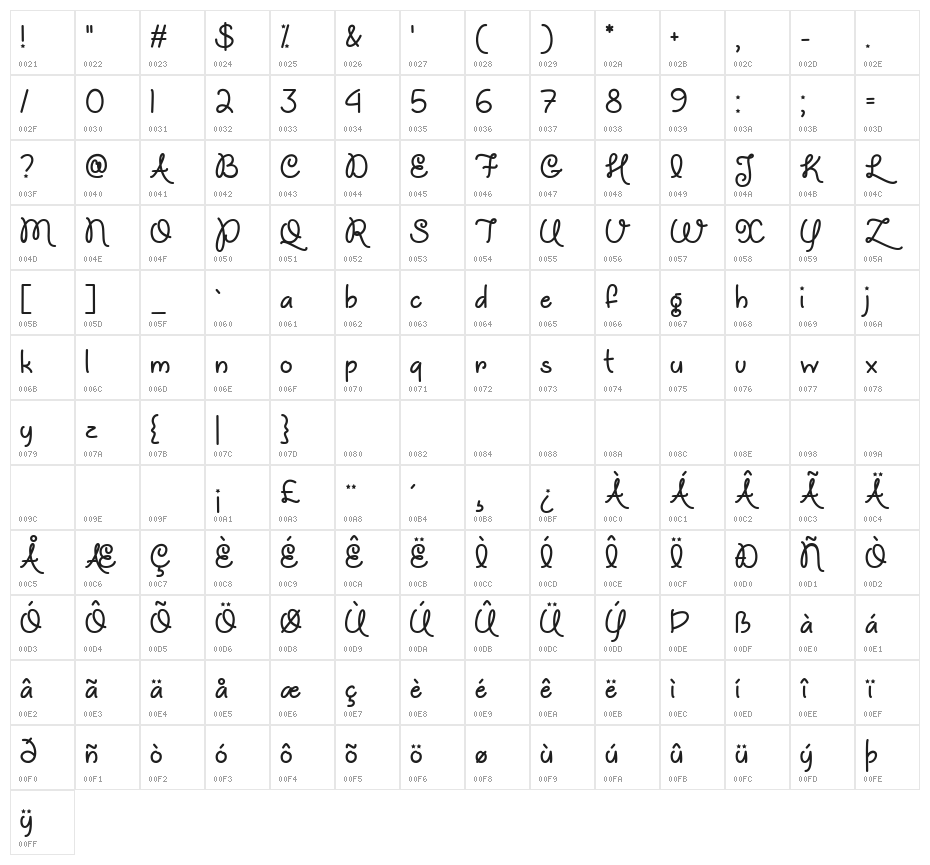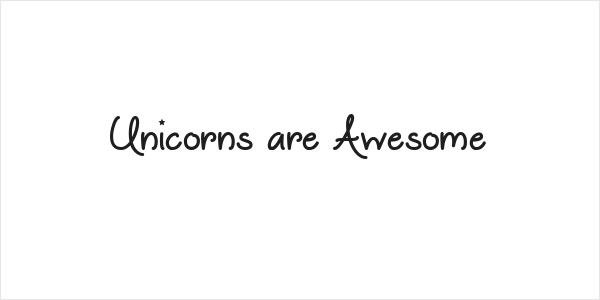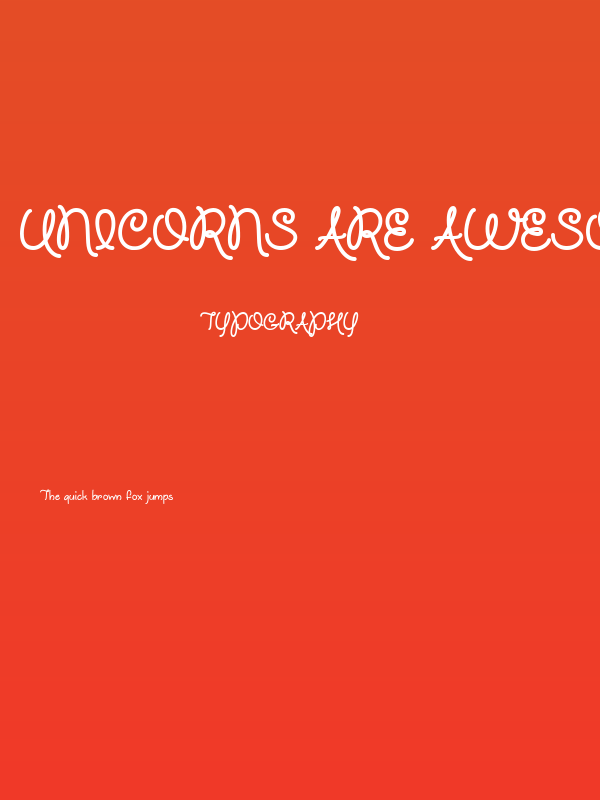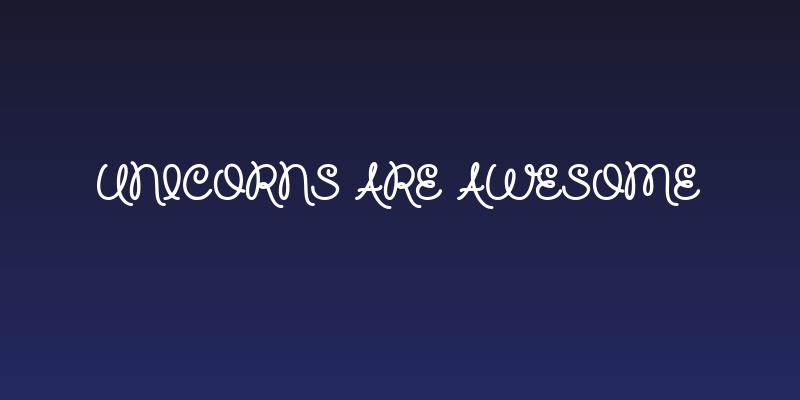
Unicorns are Awesome Font
Unicorns are Awesome Description
This font features a playful and whimsical style, characterized by its curly and flowing letterforms. The uppercase letters have a distinct, decorative flair with exaggerated loops and curves, while the lowercase letters maintain a more casual, handwritten appearance. The numbers are bold and rounded, complementing the overall playful aesthetic. Special characters are adorned with small star-like embellishments, adding to the font's charm. The font's unique style makes it suitable for creative and informal projects, offering a sense of fun and imagination.
| Proposed Projects | Ideal for children's books, greeting cards, playful branding, and creative invitations. |